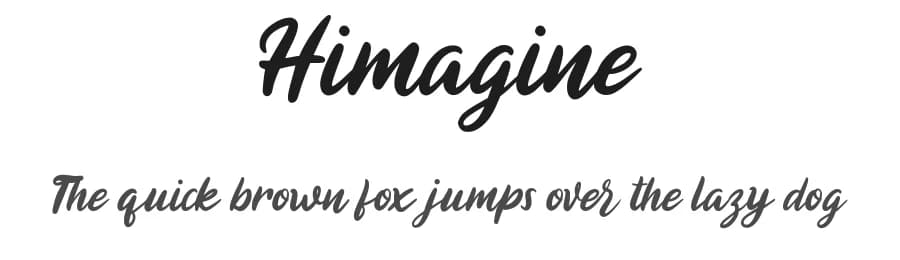
About Himagine Font
| Designer | Ikrar Bey Khubaib |
Himagine Font is a script font that shines as a display or heading face. Pair it with a clean sans-serif or serif font for body text β the contrast creates a clear hierarchy while the two styles stay balanced and easy to read.